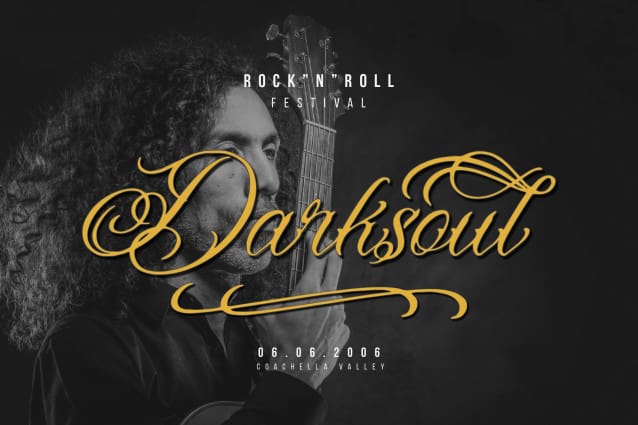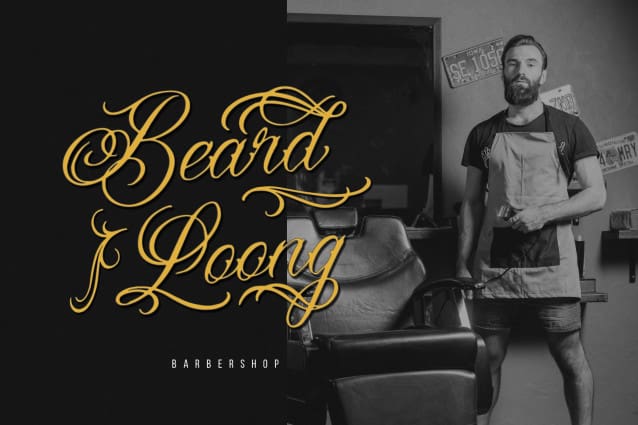
Landog Tlaloc Font
Landog Tlaloc Font | Tattoo Script Font, from Denustudios, suitable for any projects such as: logos, branding projects, homeware designs, product packaging, mugs, quotes, posters, shopping bags, t-shirts, book covers, name card, invitation cards, greeting cards, label, photography, watermark, special events, and all your other lovely projects that need a Tattoo Script taste.